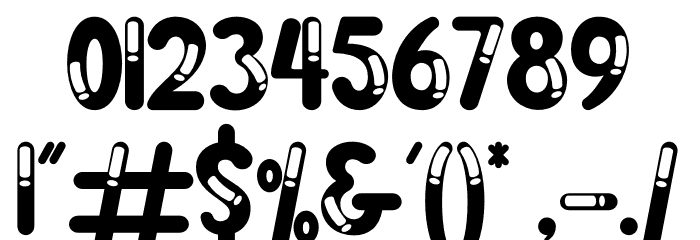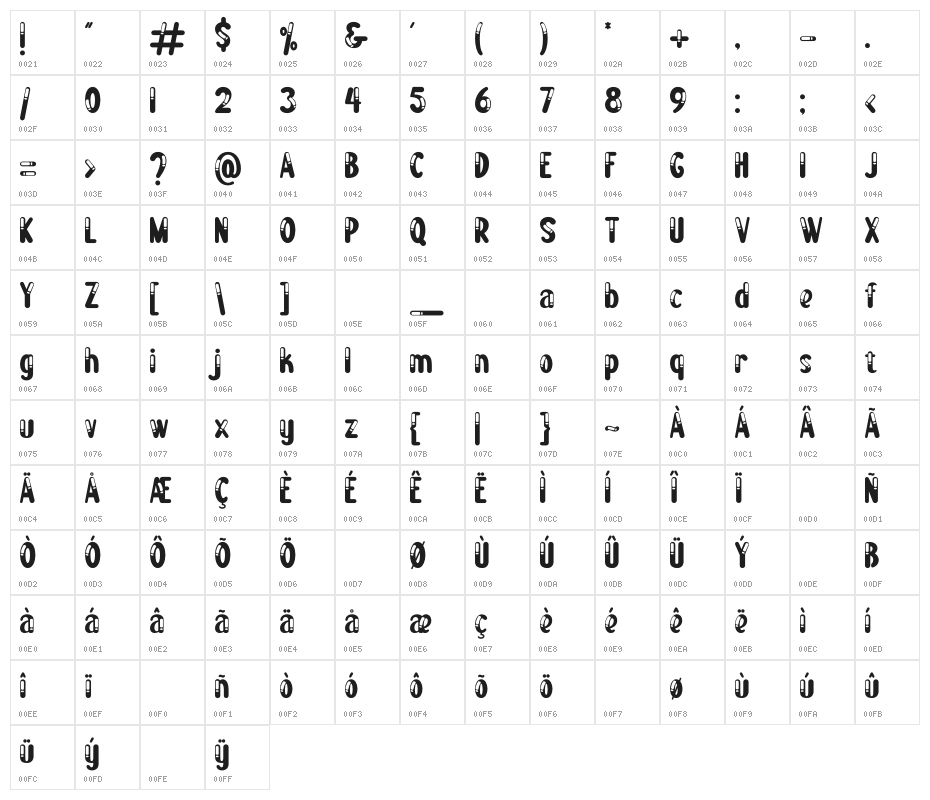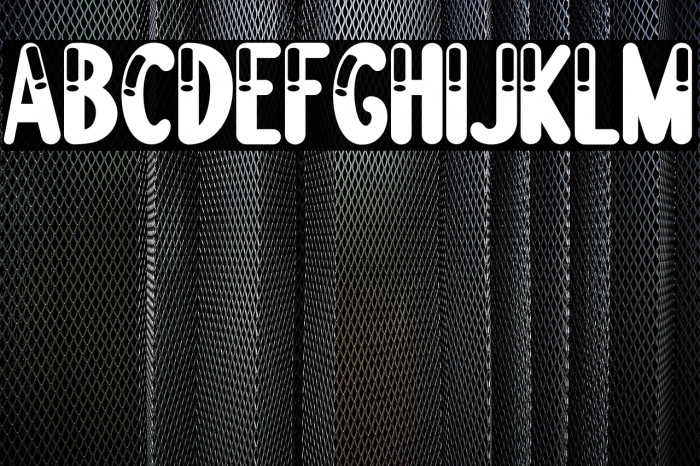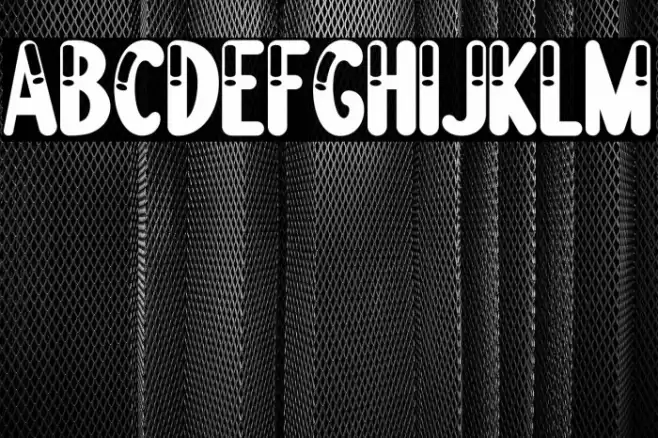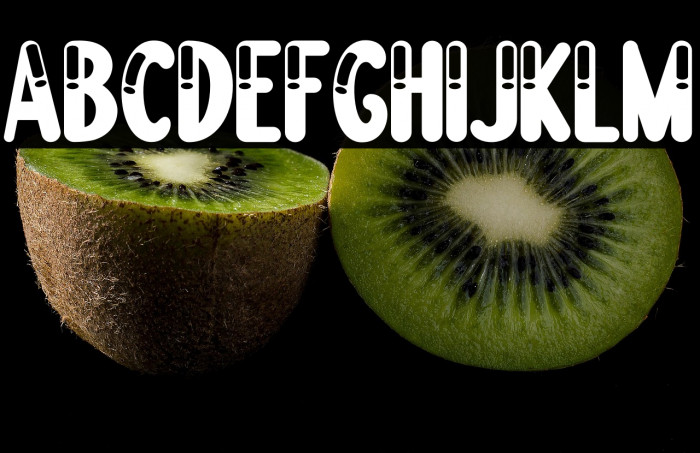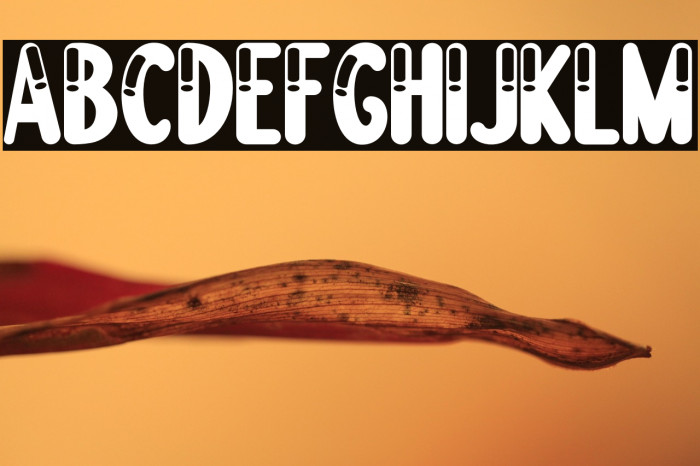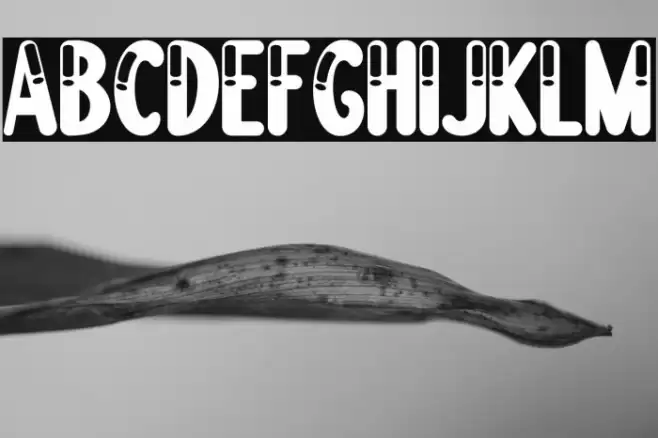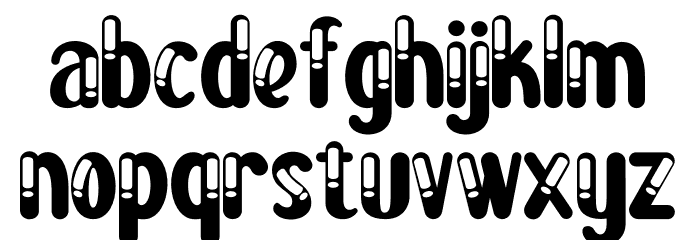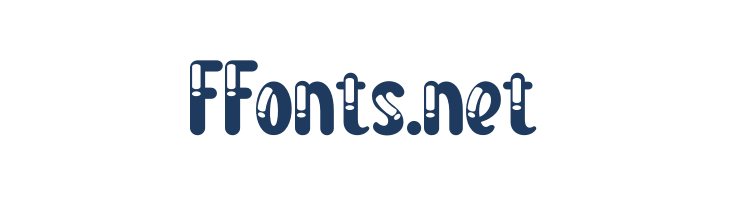
Boogie worth Three Font
Boogie worth Three Description
This font is a playful and bold display typeface characterized by its thick, rounded letterforms and unique cut-out details that resemble a retro or vintage style. The uppercase and lowercase letters maintain a consistent weight, providing a cohesive look. The numbers and special characters follow the same design principles, ensuring uniformity across all glyphs. The font's distinct style makes it ideal for projects that require a fun and eye-catching appearance.
| Proposed Projects | Ideal for posters, children's books, party invitations, and branding that requires a fun and lively touch. |